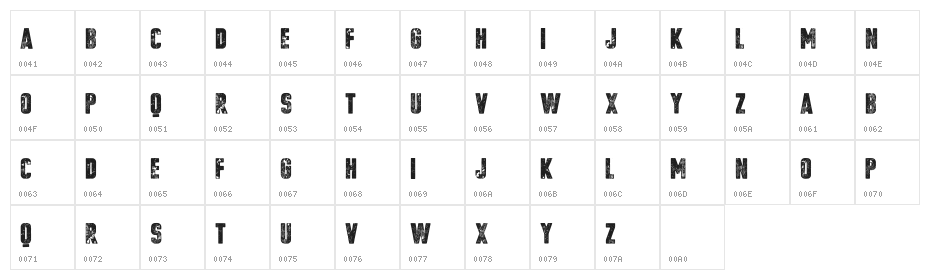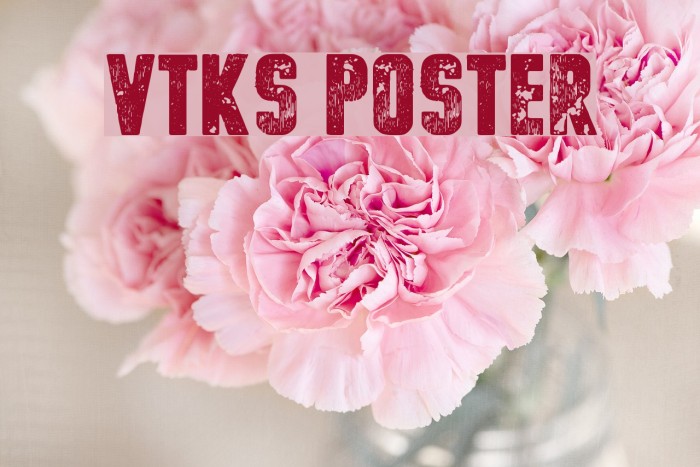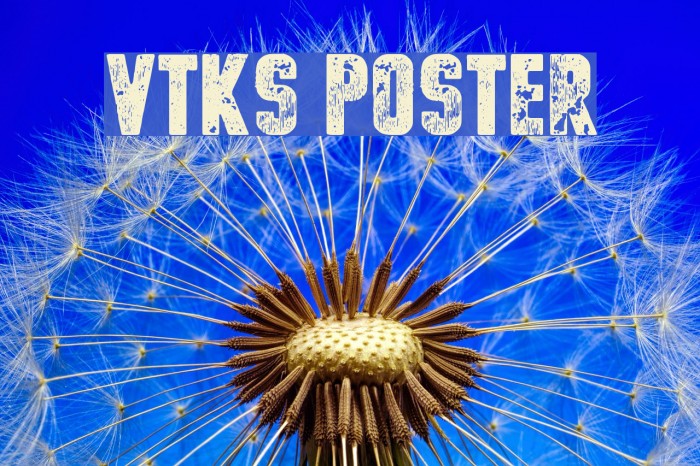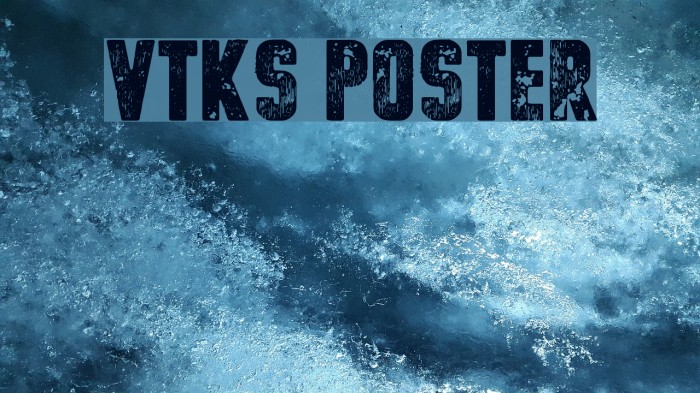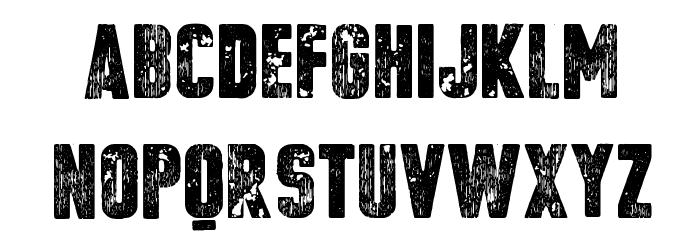
vtks poster Font
vtks poster Description
This font features a bold, distressed style with a textured appearance that gives it a rugged, worn look. The characters are uppercase, with a consistent height and width, creating a uniform appearance despite the distressed texture. The texture appears as random scratches and scuffs, adding a vintage or grunge aesthetic. This style is reminiscent of old posters or signage that have been weathered over time. The boldness of the font ensures that it remains highly legible, even with the added texture, making it suitable for impactful designs.